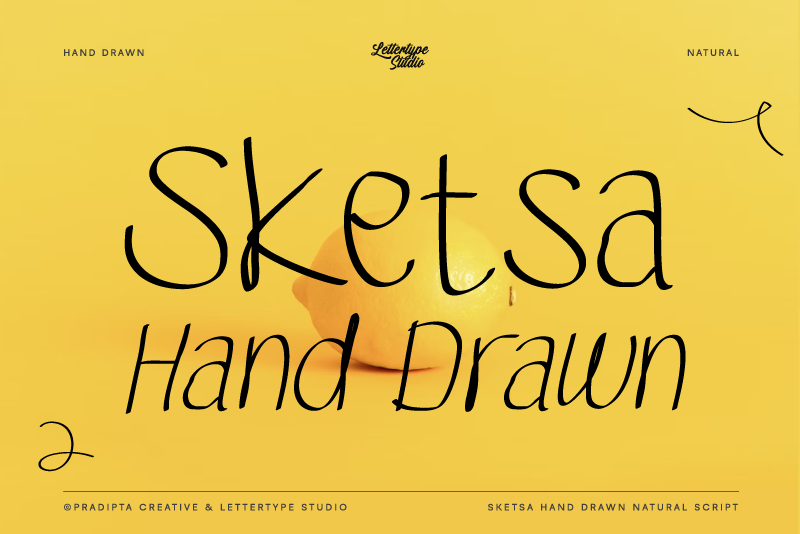
Sketsa Hand Drawn Font
About Sketsa Hand Drawn
Sketsa Handdrawn is a script handwriting fonts that seamlessly blend natural, bold, and quote-worthy styles, perfect for adding a personal touch to your designs with consitance feel. These typefaces emulate authentic handwriting, offering a spectrum from delicate swashes to robust strokes, ideal for branding, invitations, expressive typography, notes, and many more.